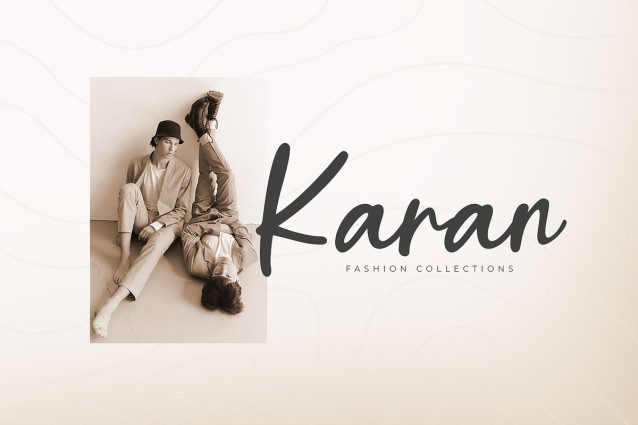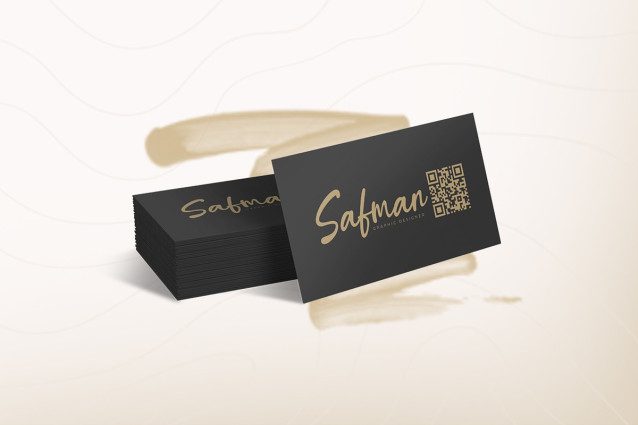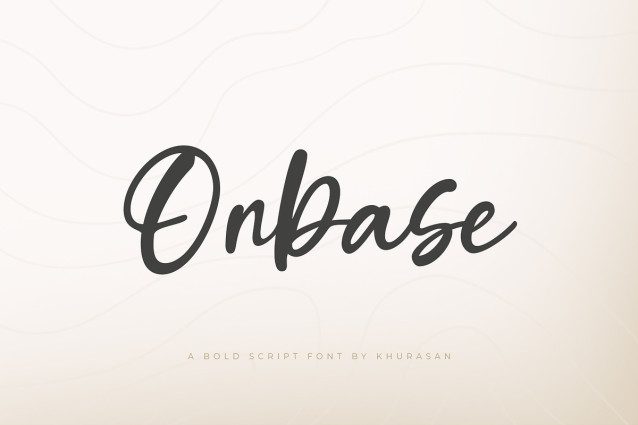
Onbase Script Font
Onbase Script Font is a modern bold script font. Onbase font suitable for logo, branding, greeting card, poster and any design that you create…!